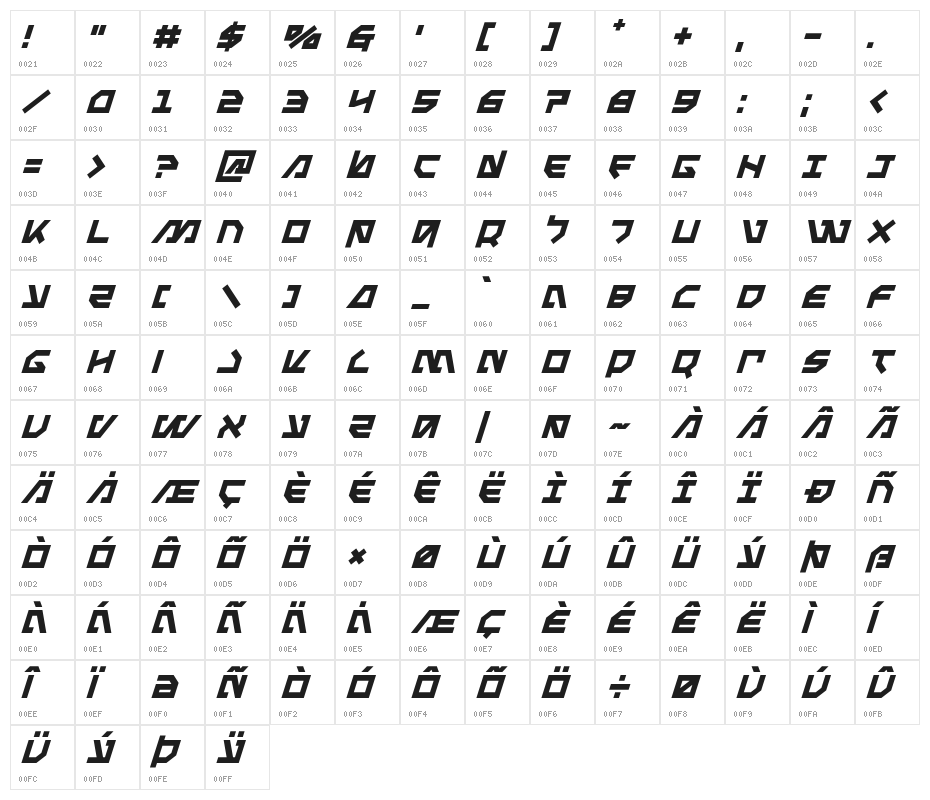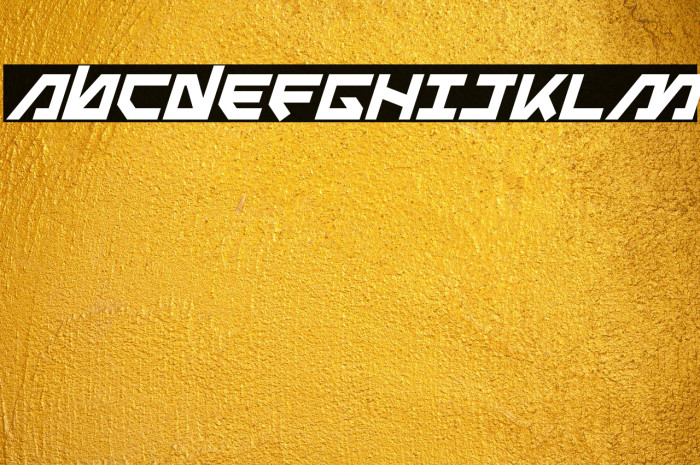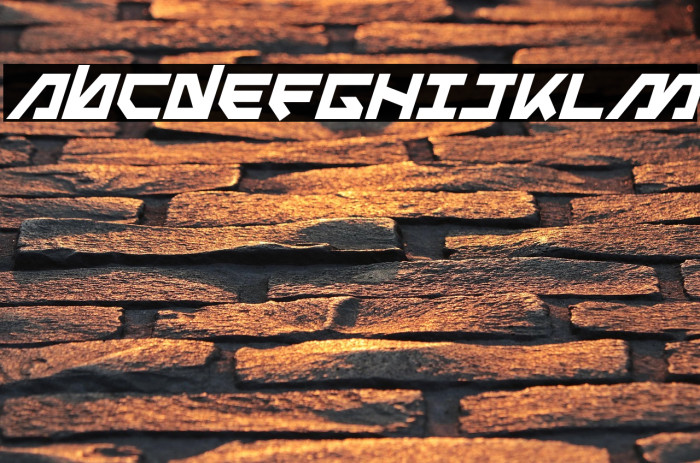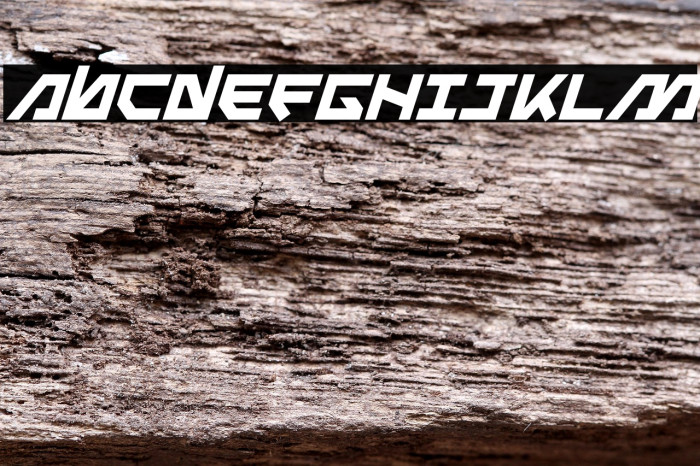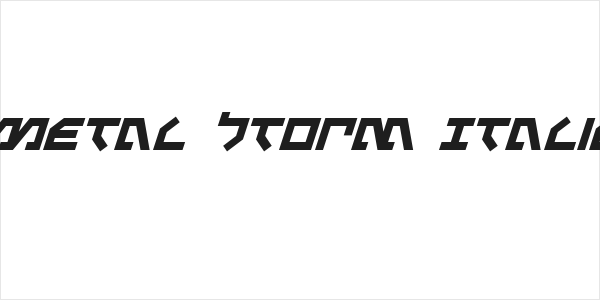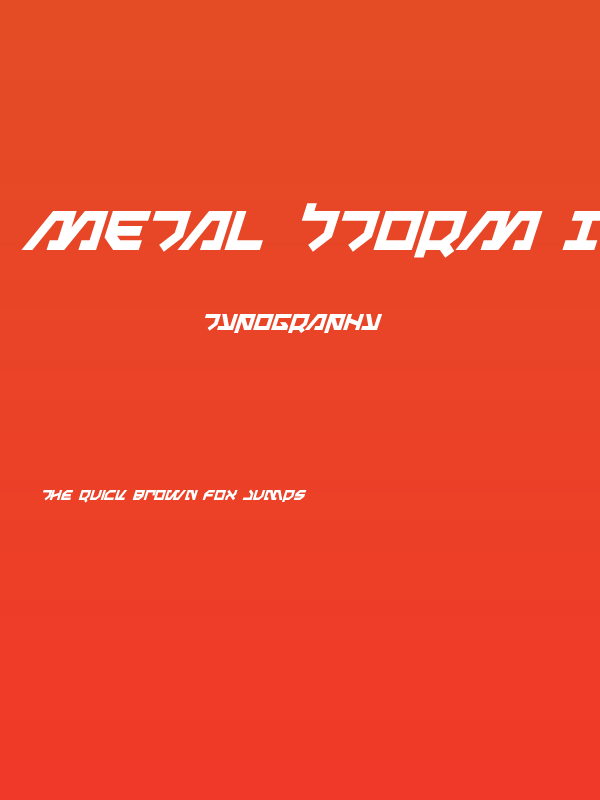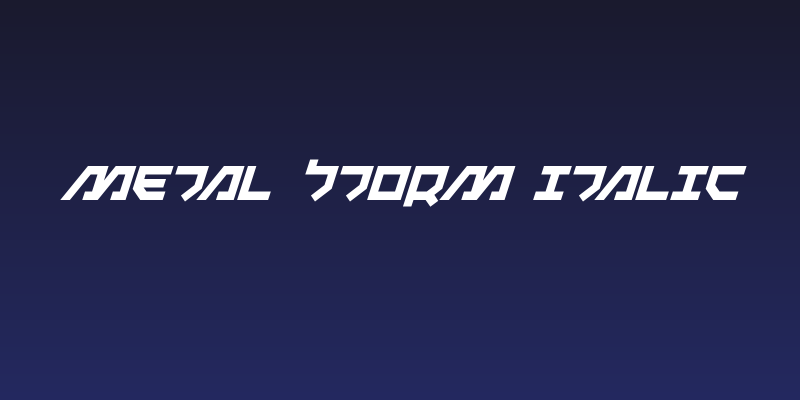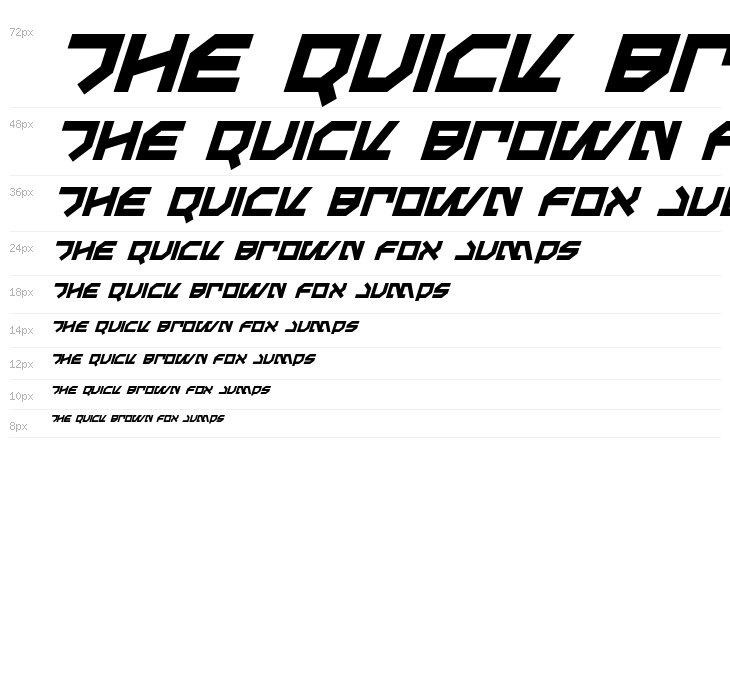
Metal Storm Italic Font
Metal Storm Italic Description
This font features a bold, angular design with a futuristic and dynamic appearance. The characters are sharply cut with a consistent slant, giving them a sense of motion and energy. The uppercase and lowercase letters maintain a uniform style, with distinct geometric shapes and pointed edges. Numbers and special characters follow the same design principles, ensuring a cohesive look throughout. The font's aggressive and modern aesthetic makes it suitable for projects that require a strong visual impact.
| Proposed Projects | Ideal for sci-fi themed designs, video game titles, tech branding, and posters that require a bold statement. |